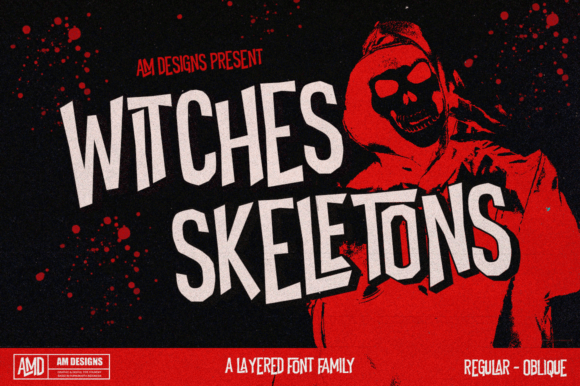
Journey into the realm of the supernatural with Witches Skeletons – a hauntingly beautiful display font family that conjures an aura of mystery and captivation. This collection of fonts is a stroke of genius, meticulously crafted to capture the eerie essence of old horror movies and vintage comic books. Witches Skeletons grants you the power to transform words into chilling tales and eye-catching headlines that dance before the eyes like whispers from the beyond.
Visualize the impact of your designs adorned with Witches Skeletons. Its unique character set, featuring sharp angles and a hint of mischief, is a visual masterpiece. Let your creativity run wild as you craft titles, logotypes, and quotes that leap off the page, captivating audiences with their otherworldly charm.
Embrace the versatility of Witches Skeletons, effortlessly adapting to a myriad of projects from clothing designs and invitations to flyers, posters, and greeting cards. Unleash your imagination and watch as product packaging, book covers, and print quotes come alive with an eerie elegance. Invoke a sense of nostalgia and intrigue as you design movie and album covers that radiate a haunting allure.
With Witches Skeletons, you possess the key to unlocking creativity's darkest corners. Step into the world of the macabre and let your designs dance with the spirits of the night. Embark on this thrilling journey today and experience the magic of Witches Skeletons – where the realm of dreams and nightmares collide, leaving an indelible mark on your designs.